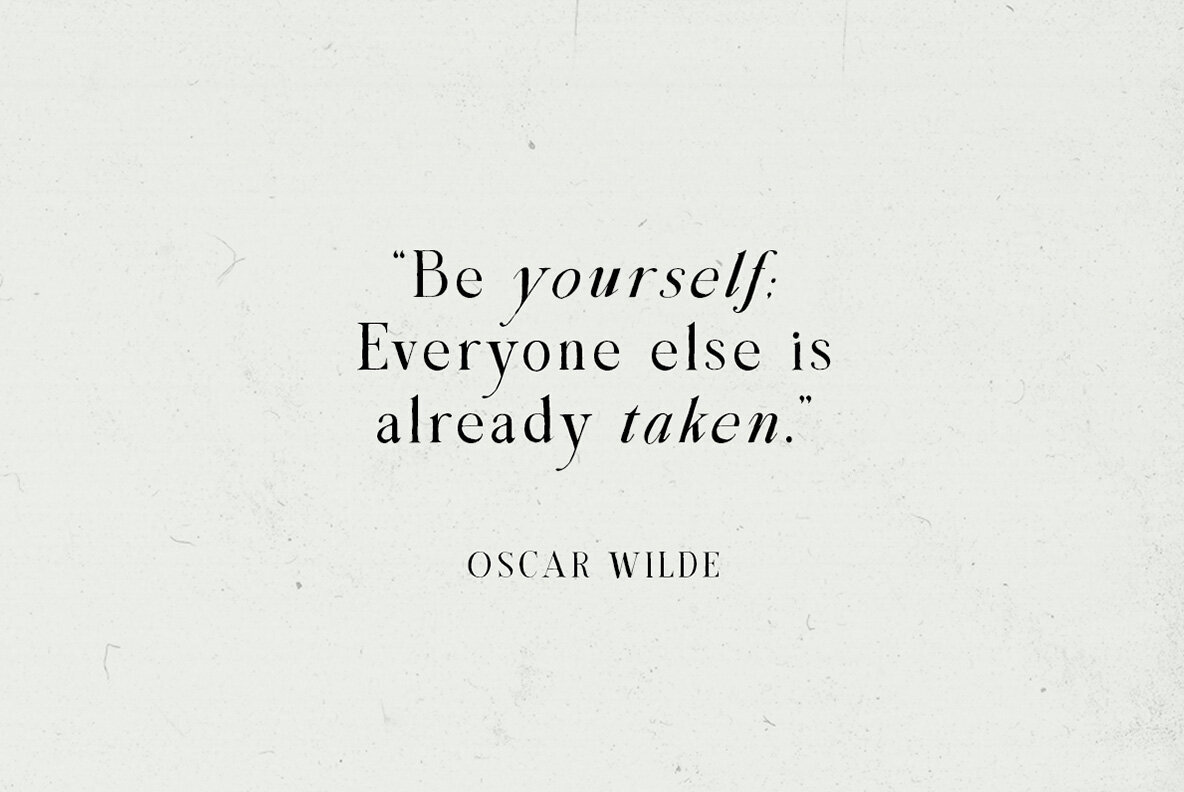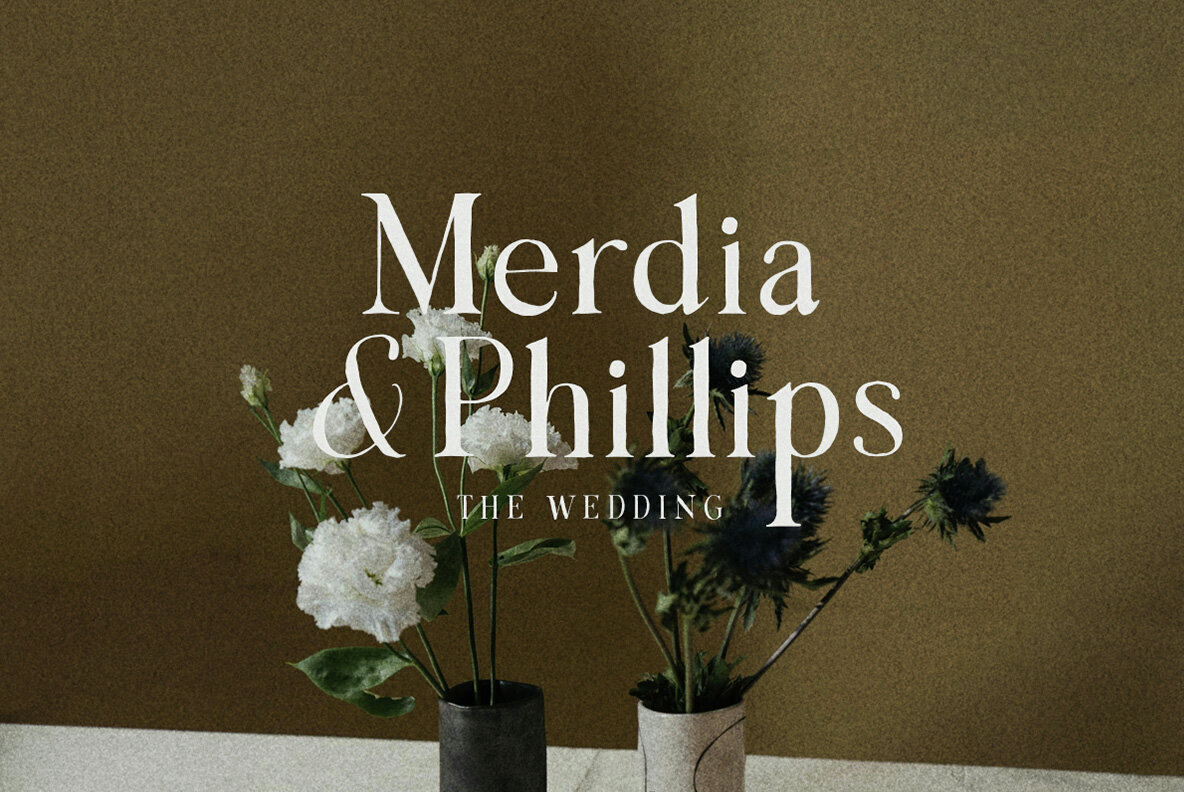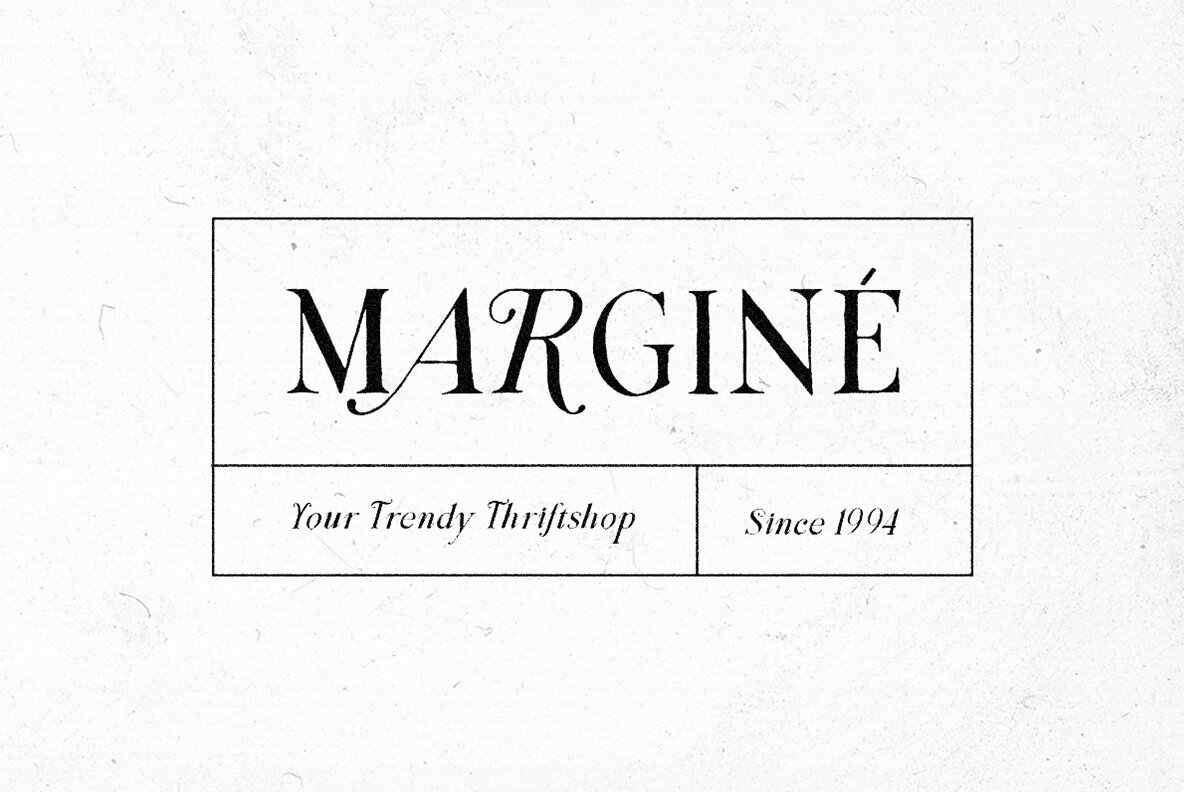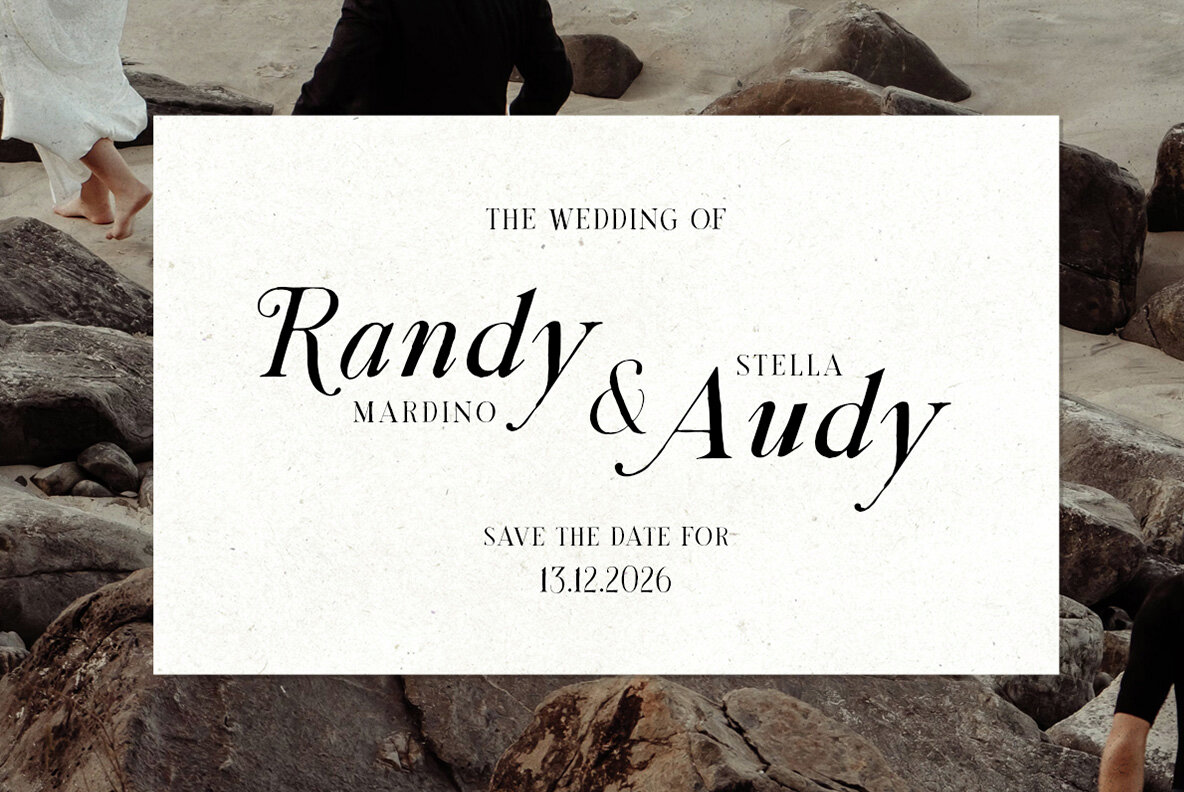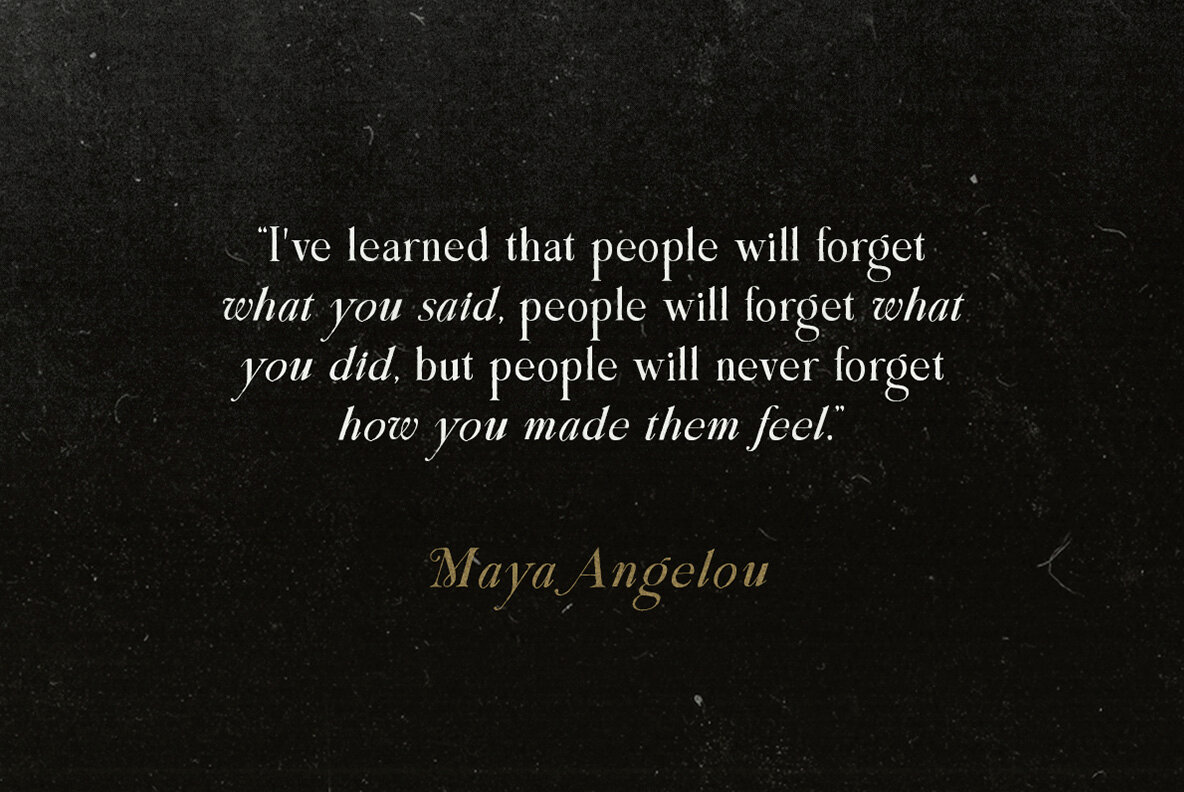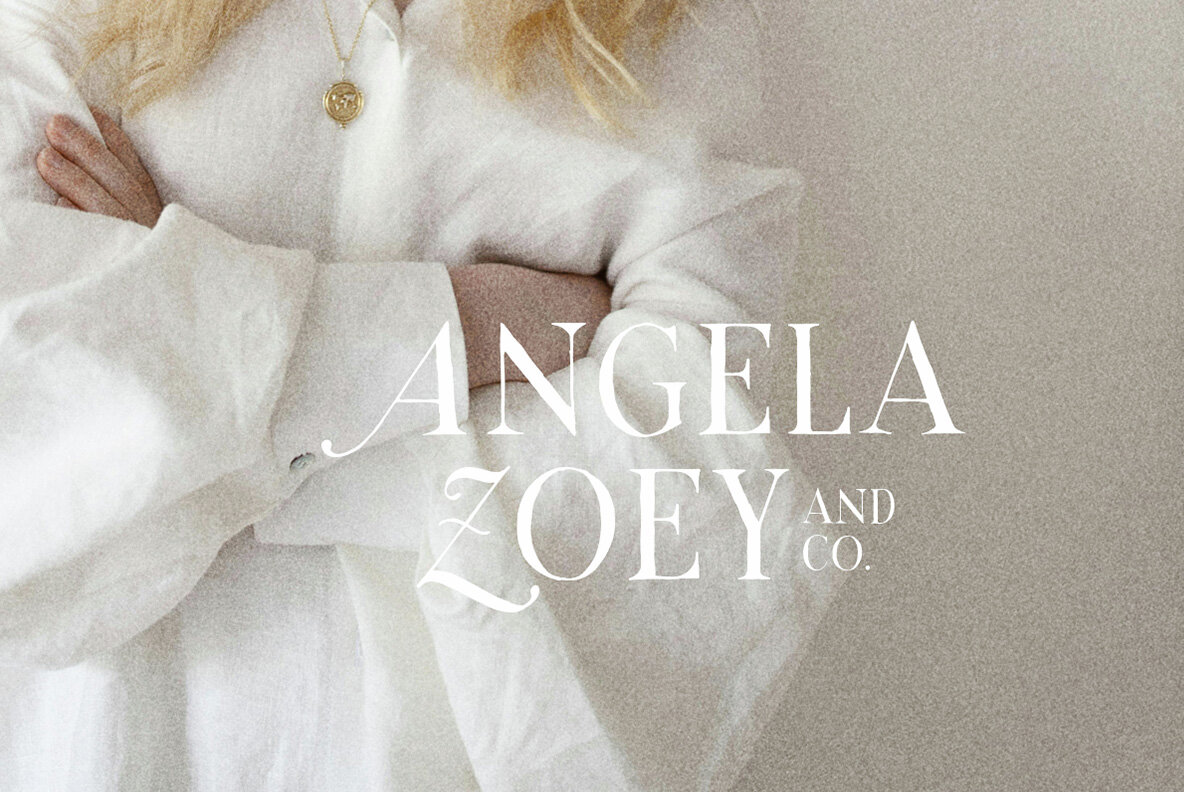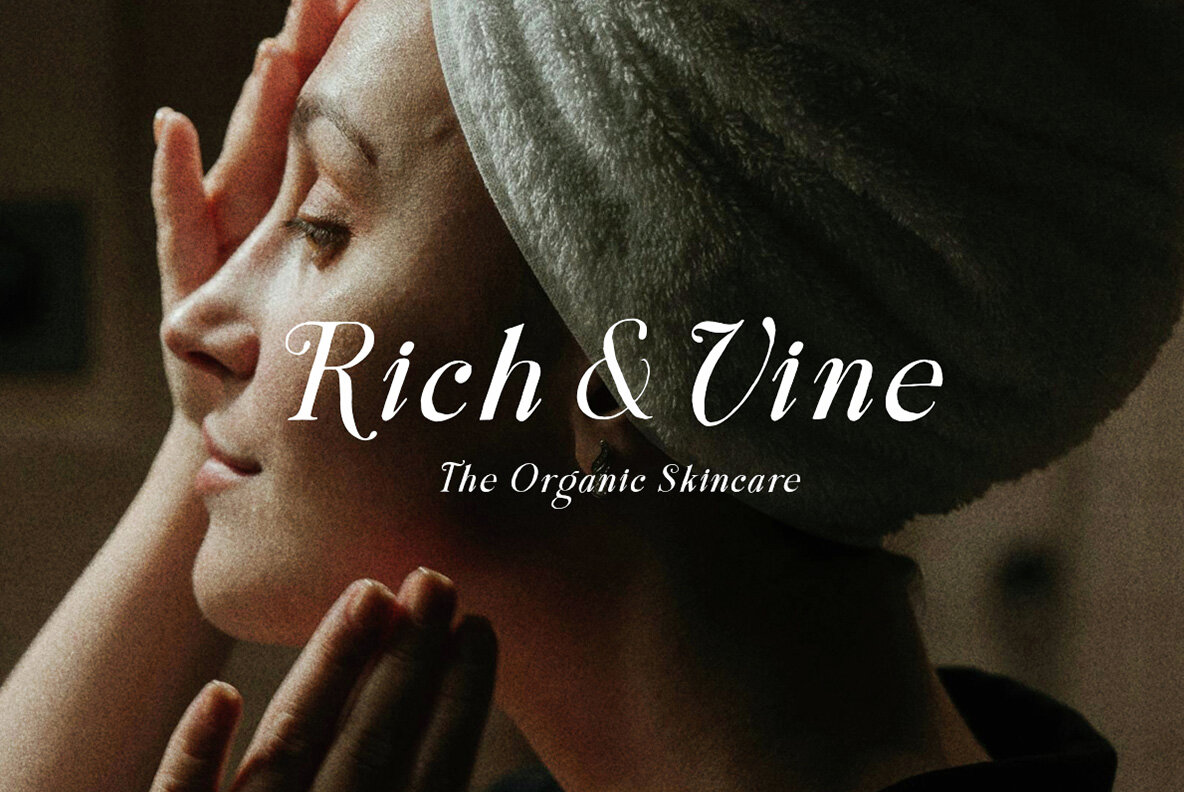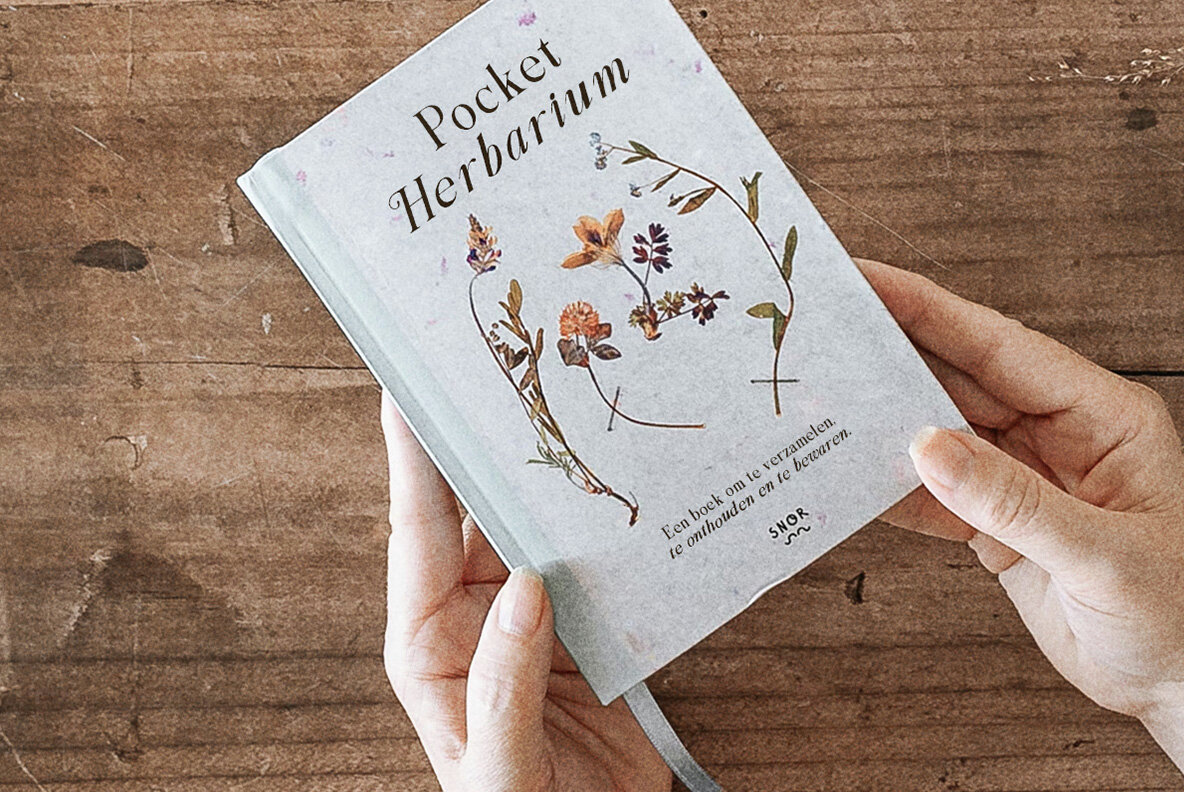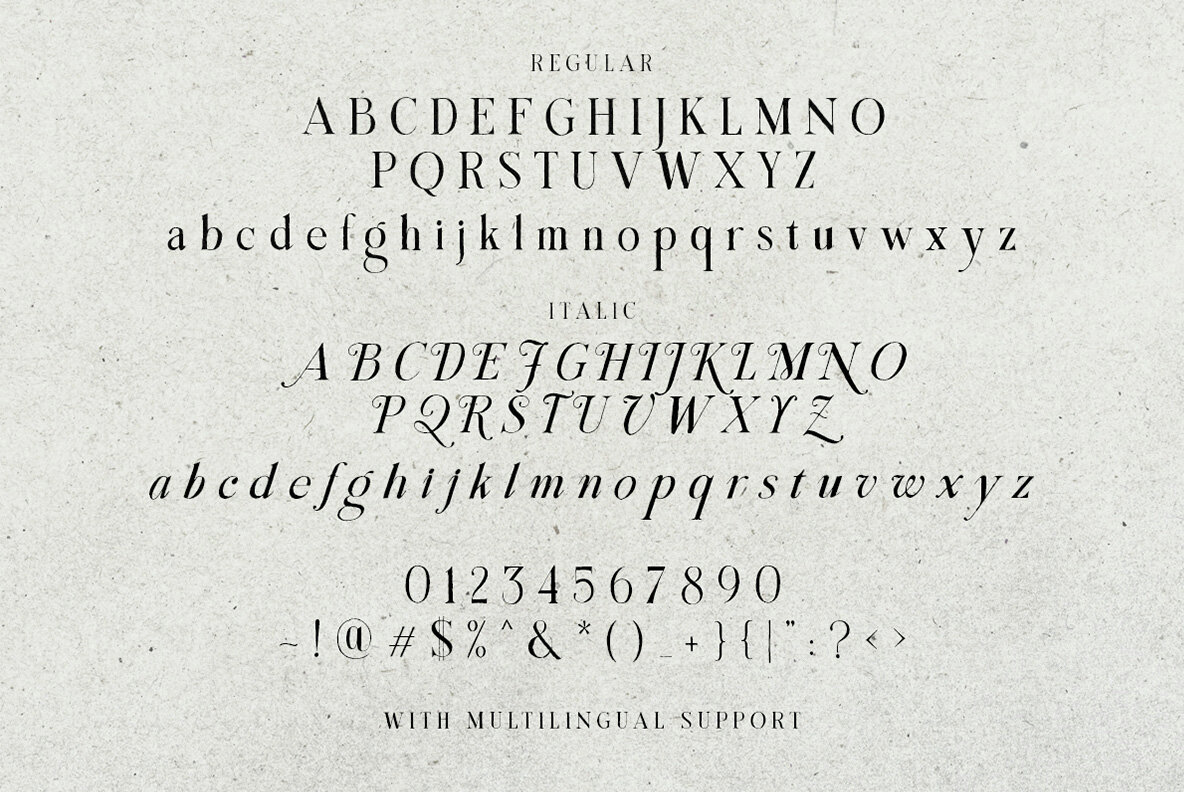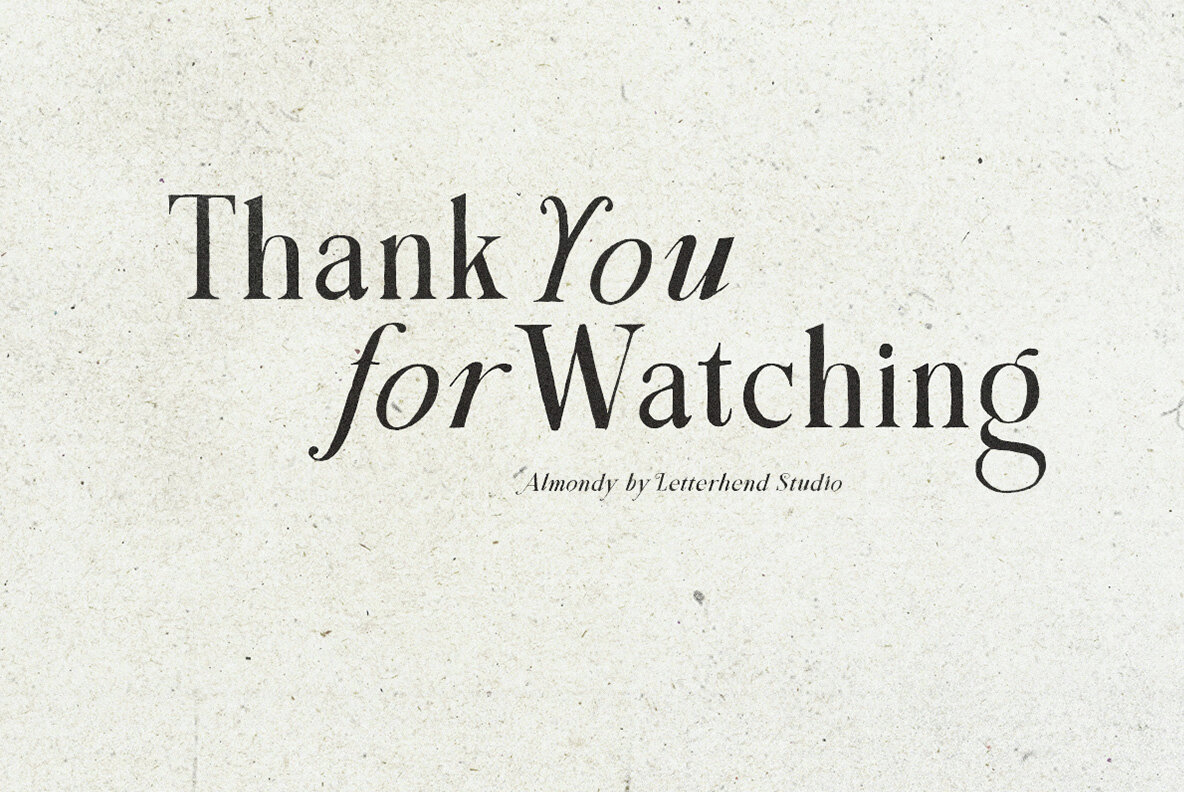
The Almondy Font
The Almondy is an elegant organic serif font offering a sophisticated touch for various formal design needs. This typeface comes with a true italic version, adding an extra layer of style to your projects. It's versatile enough to enhance invitations, labels, logos, magazines, books, greeting and wedding cards, packaging, fashion, makeup designs, stationery, novels, and advertising materials.
This font includes a comprehensive set of uppercase and lowercase characters, numbers, punctuation, and supports multiple languages. Additionally, The Almondy is PUA encoded, ensuring easy access to a wide array of special characters and glyphs. To fully exploit its potential, using software that supports OpenType features and glyph panels, such as Adobe applications or Corel Draw, is recommended for designers aiming to customize and enrich their work.